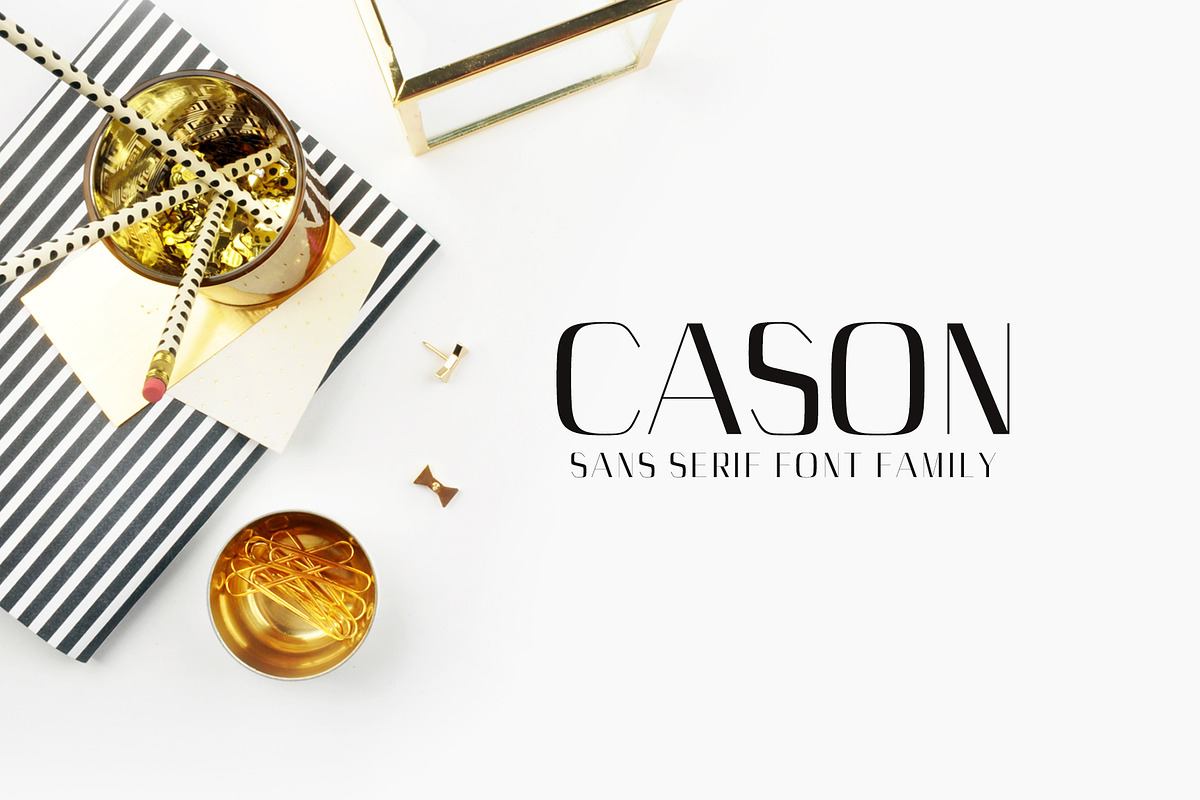
Cason Sans Serif Font Free Download is a clean, modern typeface with a sophisticated and professional look. Designed with simplicity and clarity in mind, this font is perfect for a wide range of applications, including branding, web design, print materials, and editorial layouts.
Its smooth lines and geometric shapes give it a contemporary edge, while its high readability ensures it works well in both large headings and body text. Whether you're creating a minimalistic logo, designing a corporate website, or crafting professional brochures, Cason adds a modern, stylish touch to any project. Cason Sans Serif Font Free Download lets you explore its sleek design in personal projects before purchasing a commercial license.
Elevate your designs with Cason — the sans-serif font that brings modern elegance and clarity to every project.